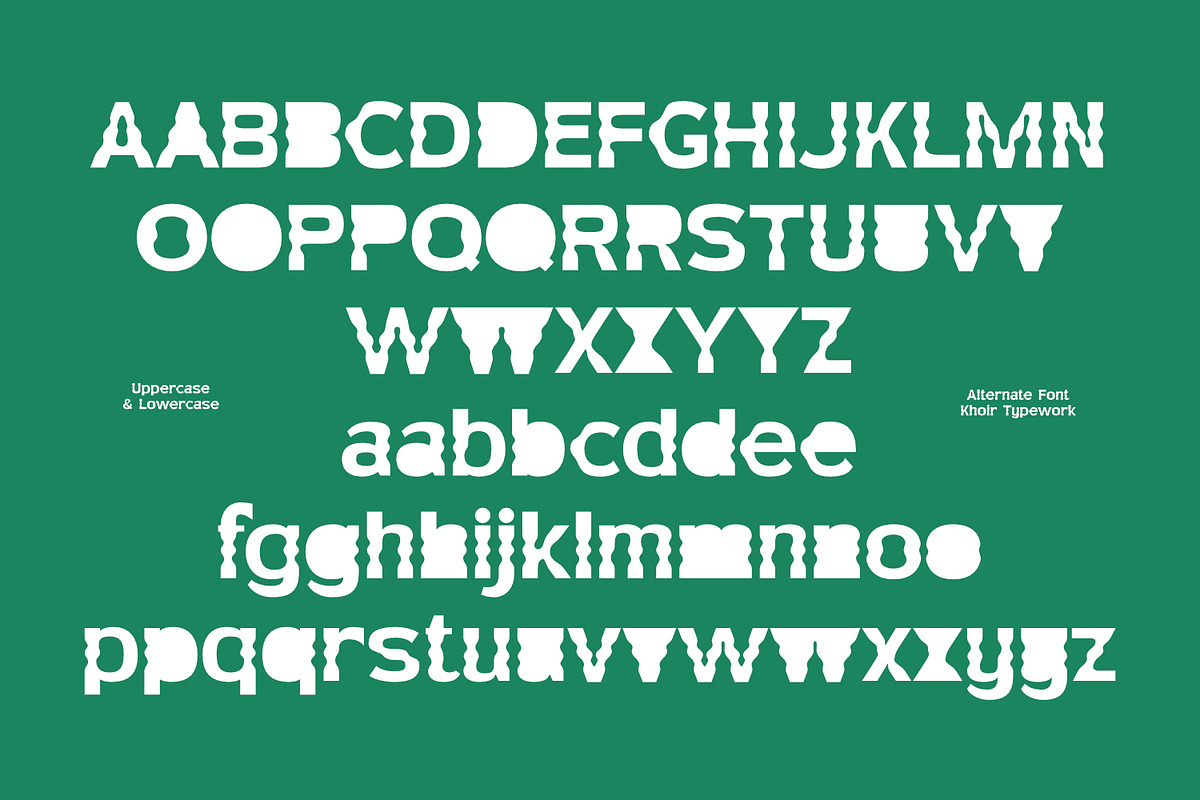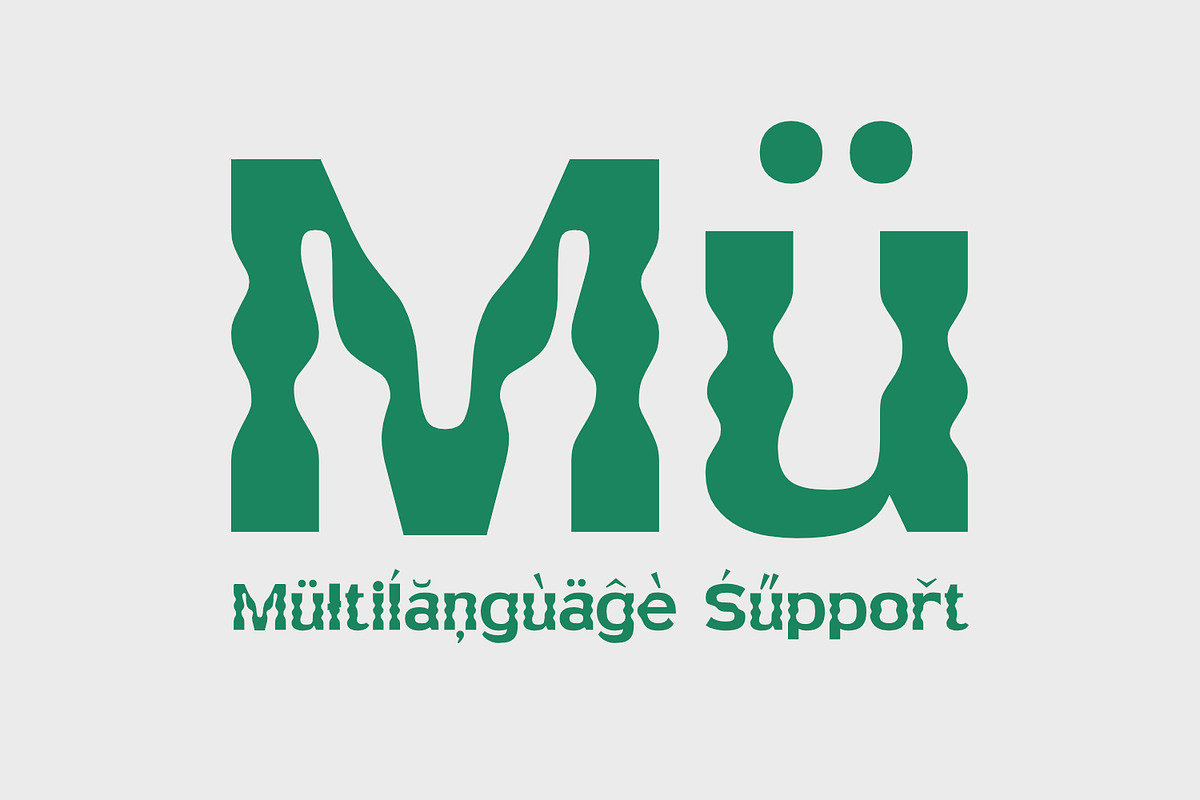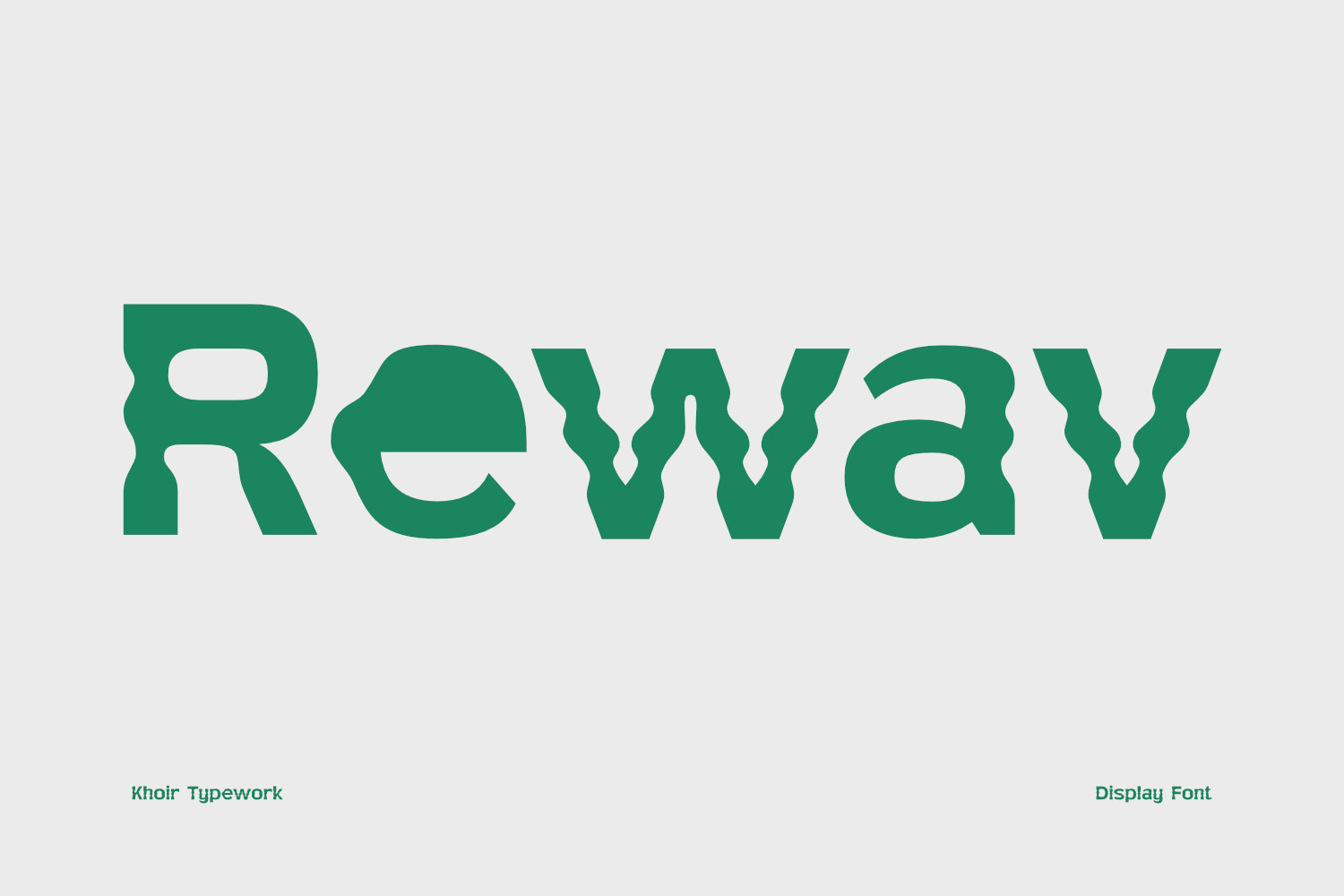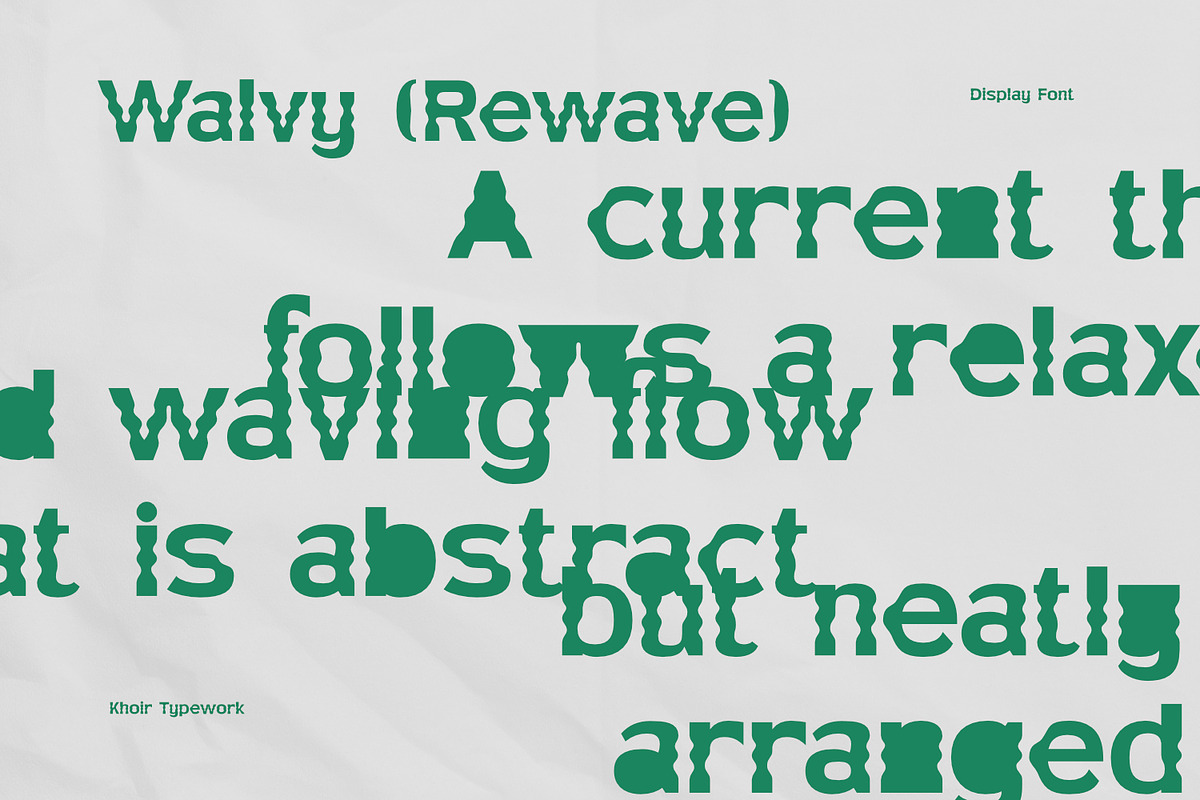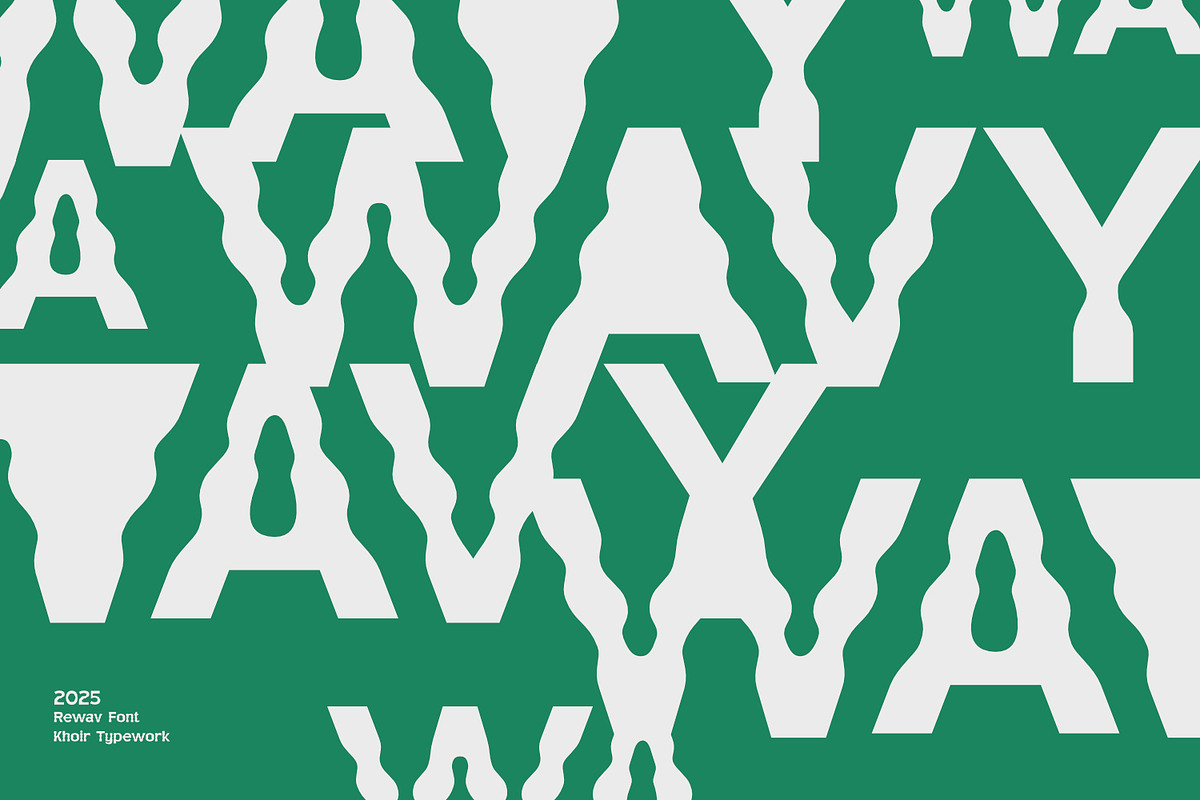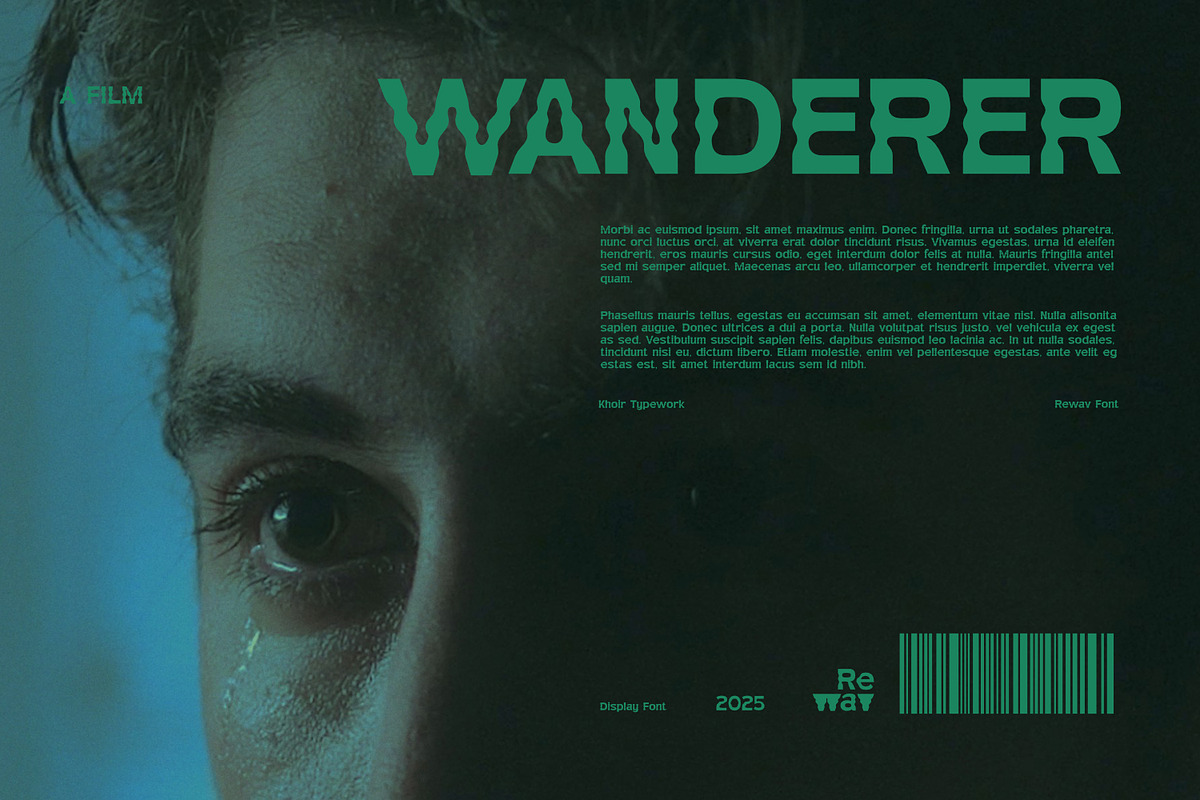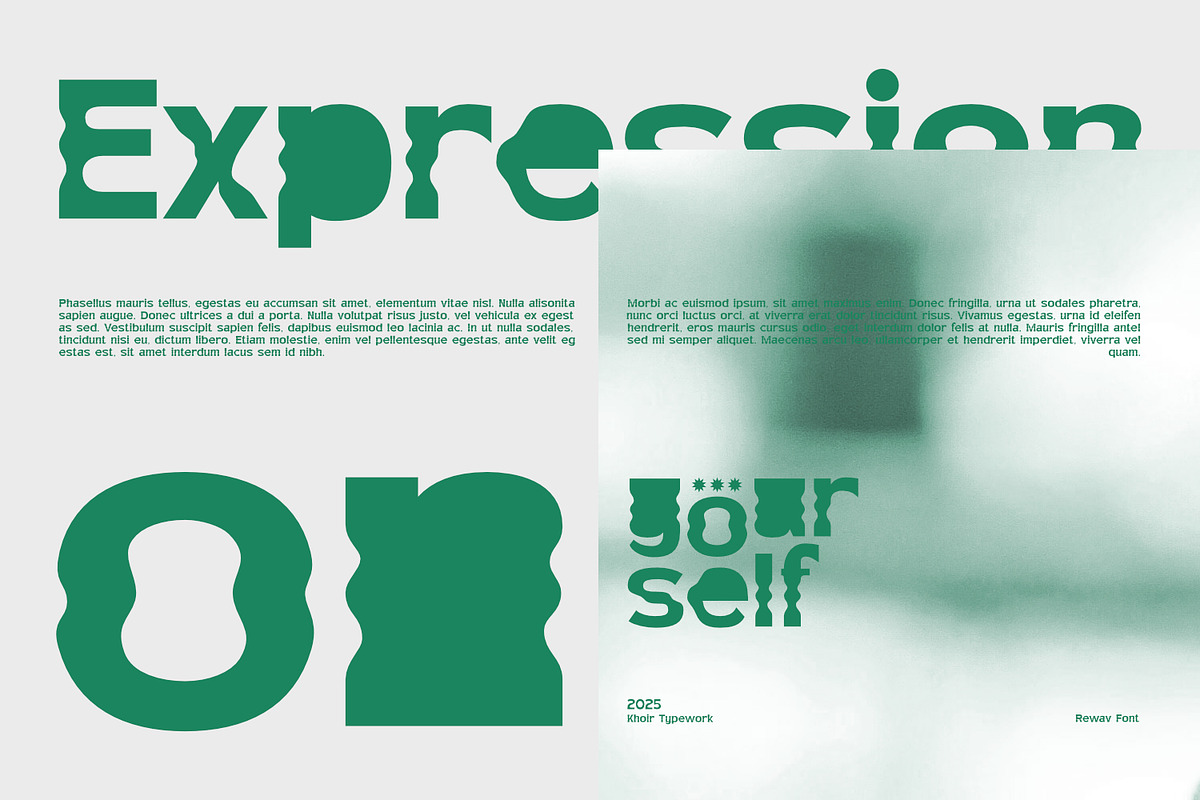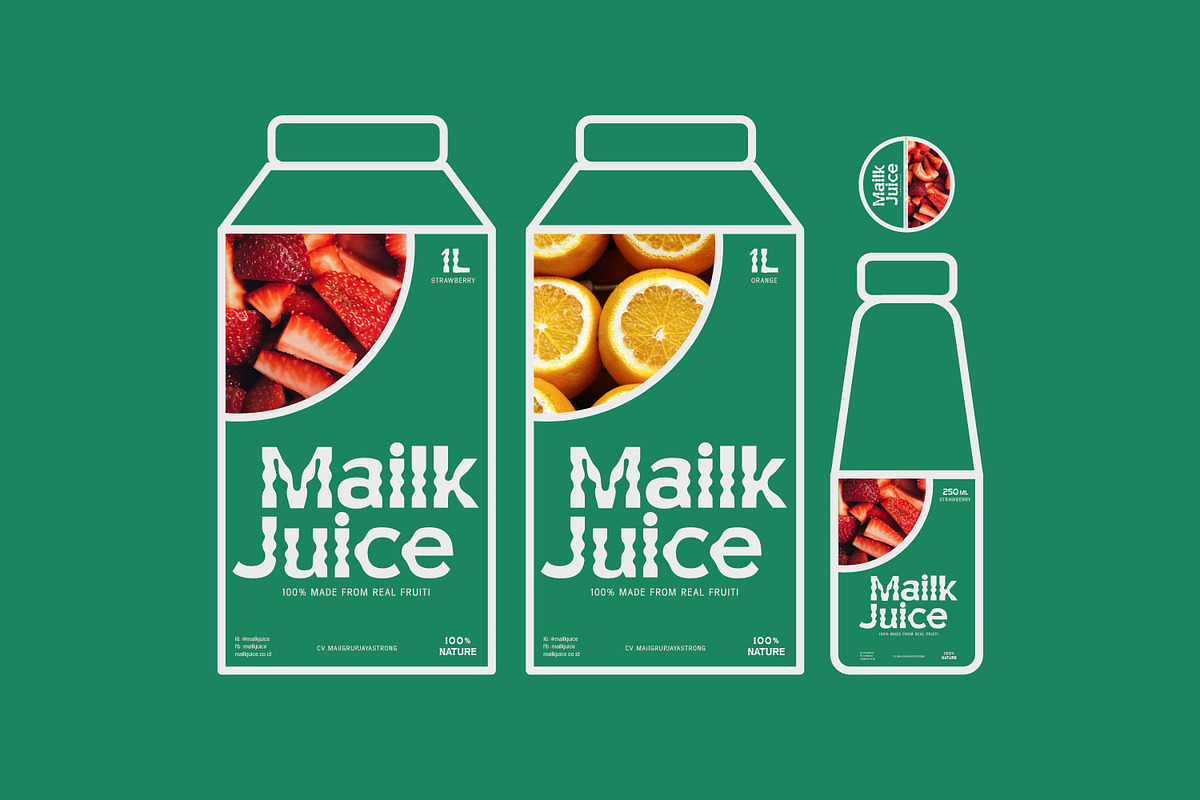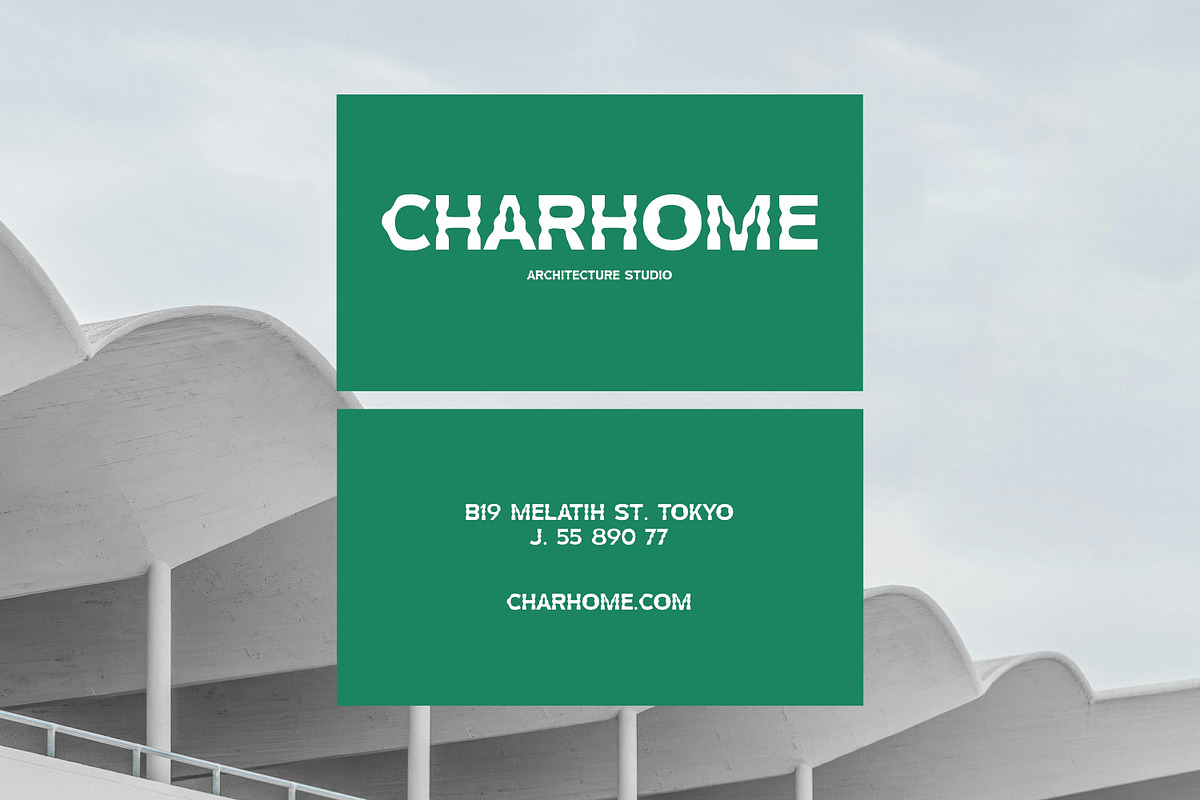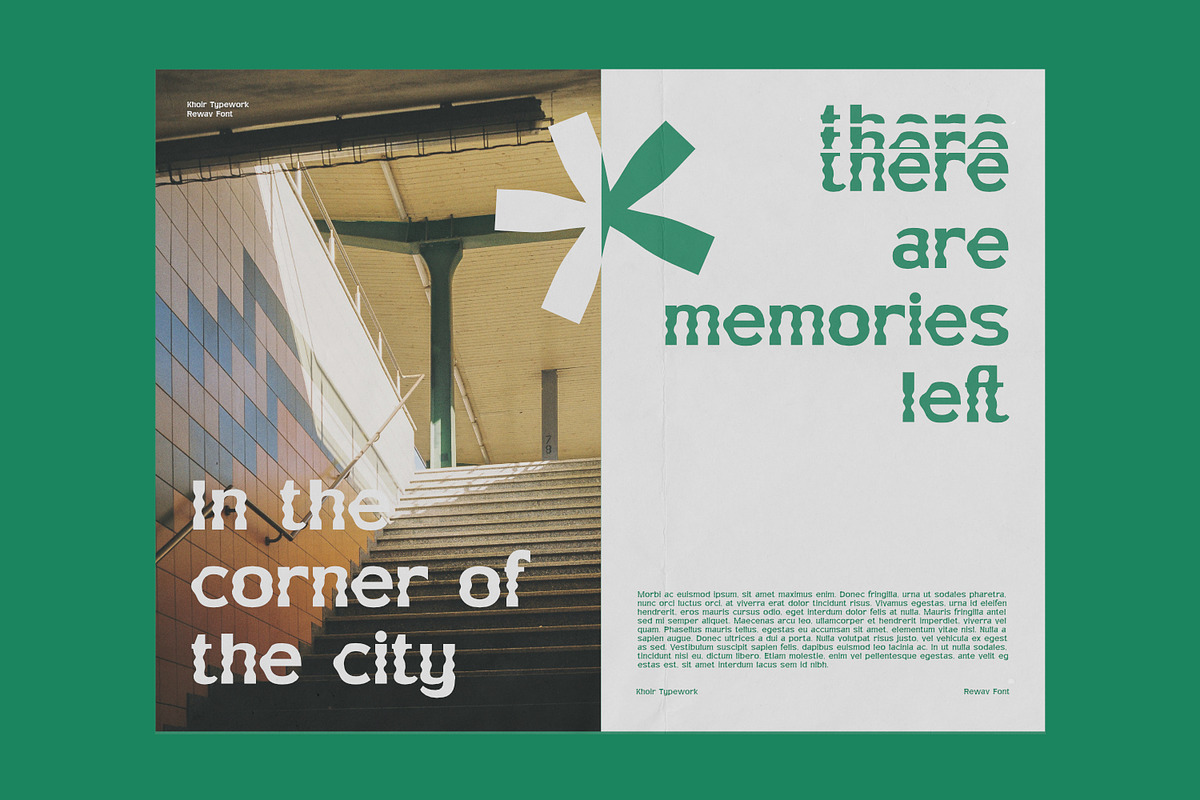
Rewav - Display Font
A simple and lightweight sans serif font with curves that make it stand out among other sans serif fonts, this font has uniform alternates and ligatures, making it easy to use for any design, from logos, posters, business cards, movie titles, covers and more.